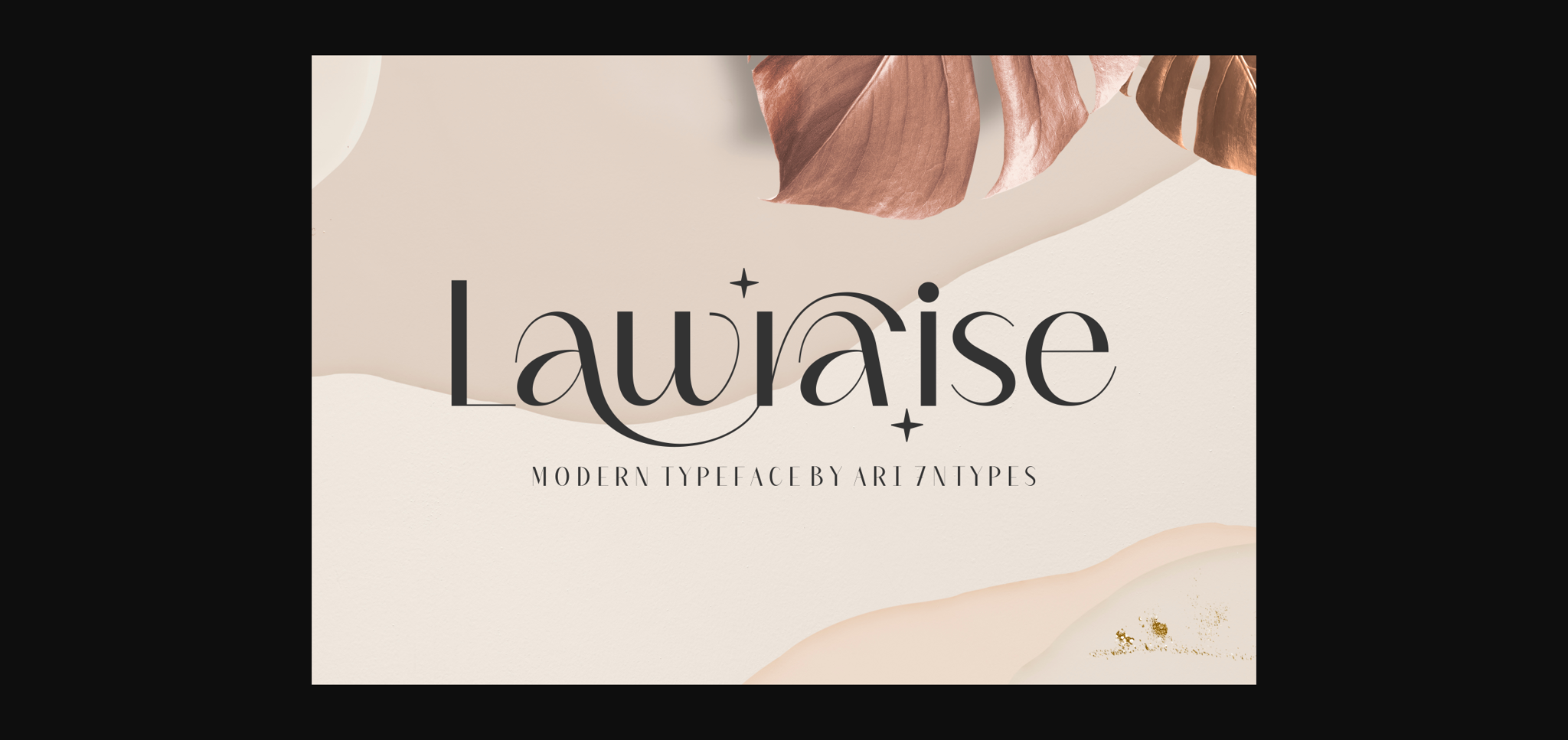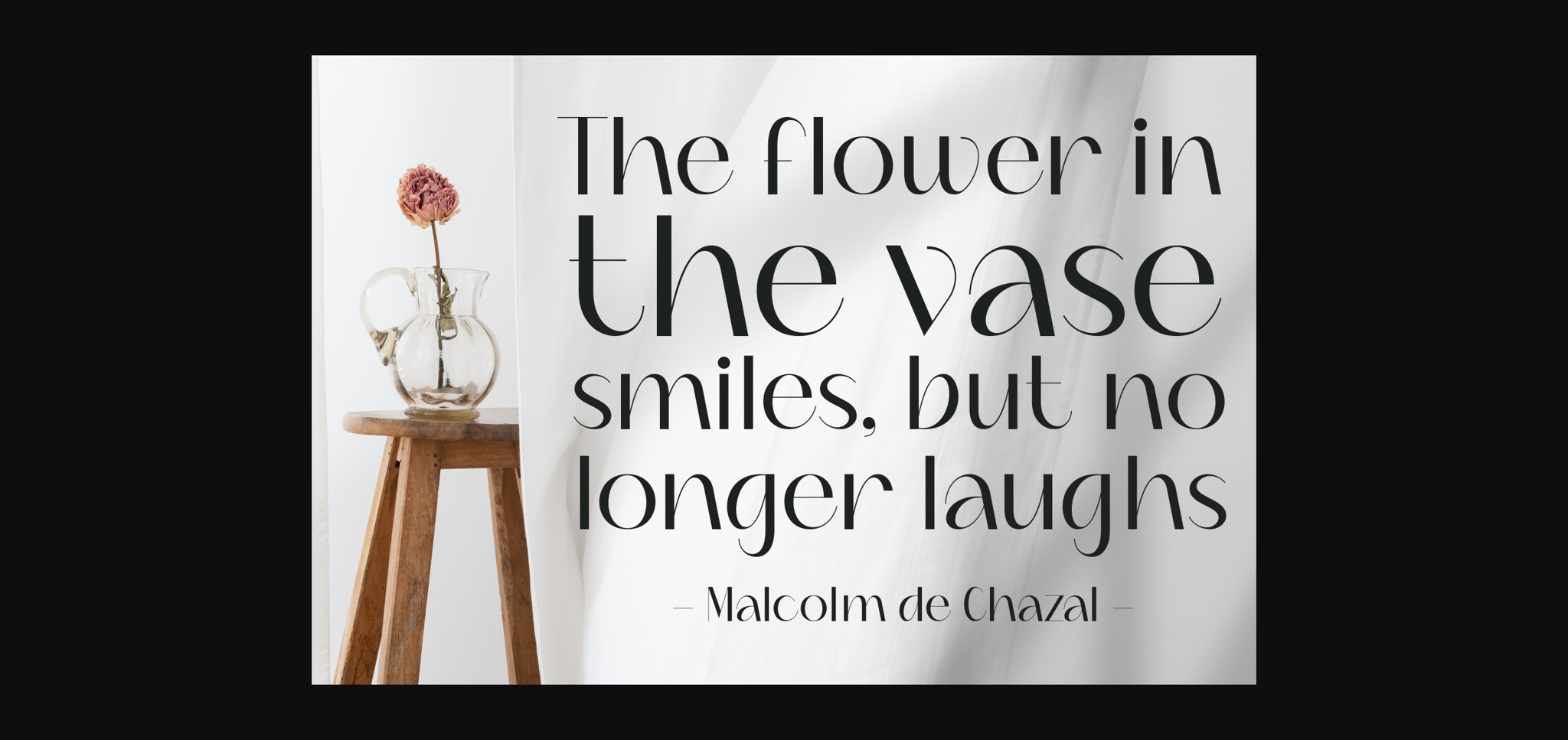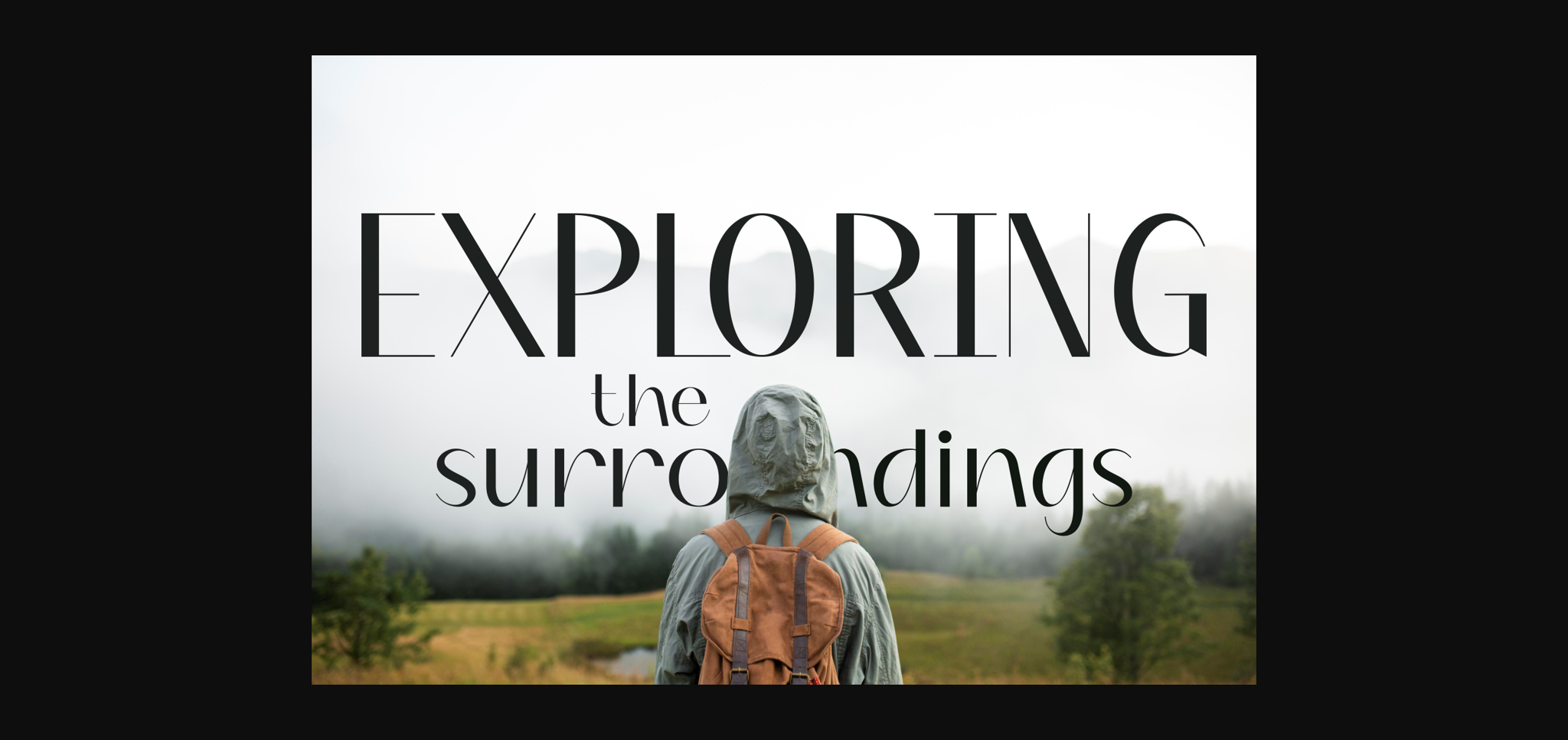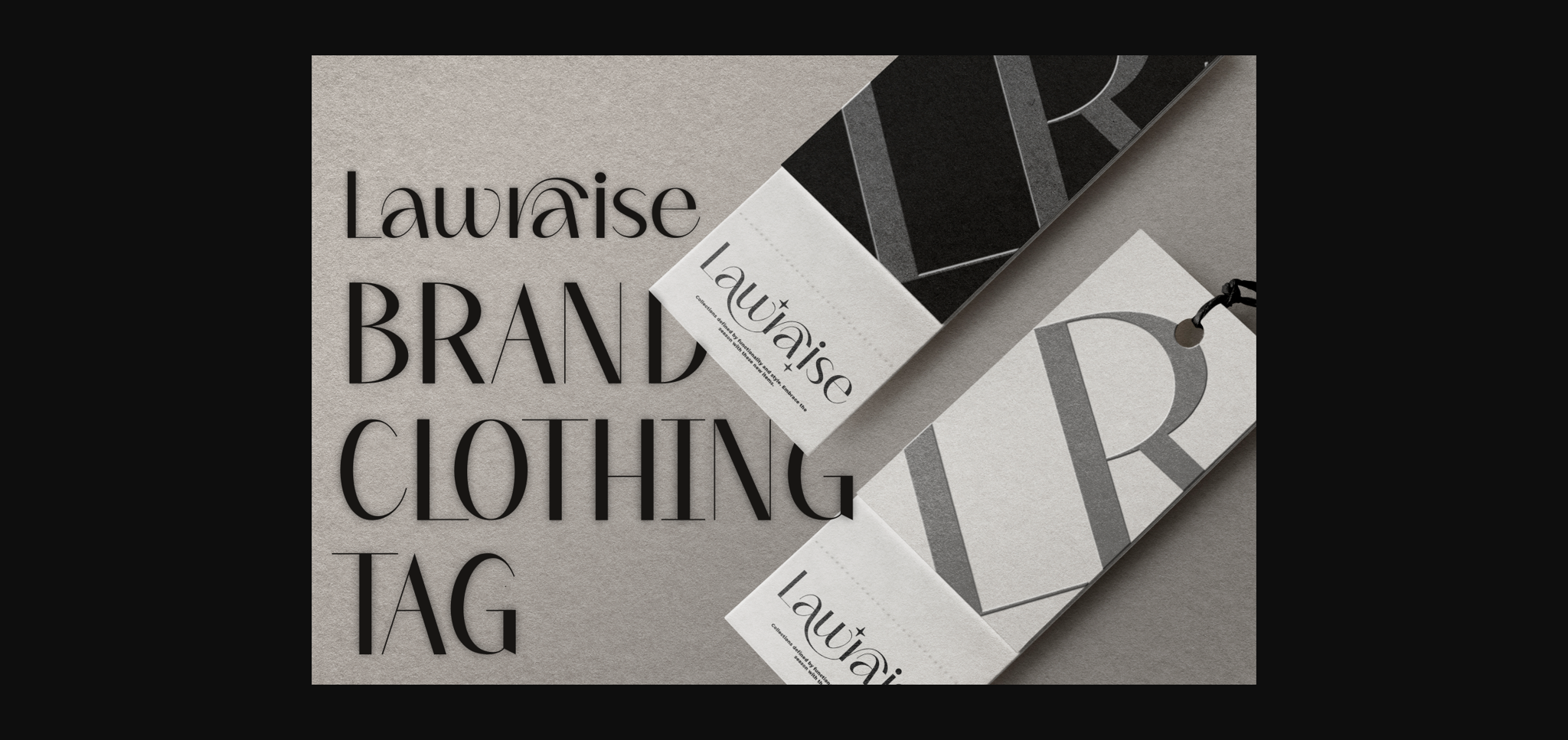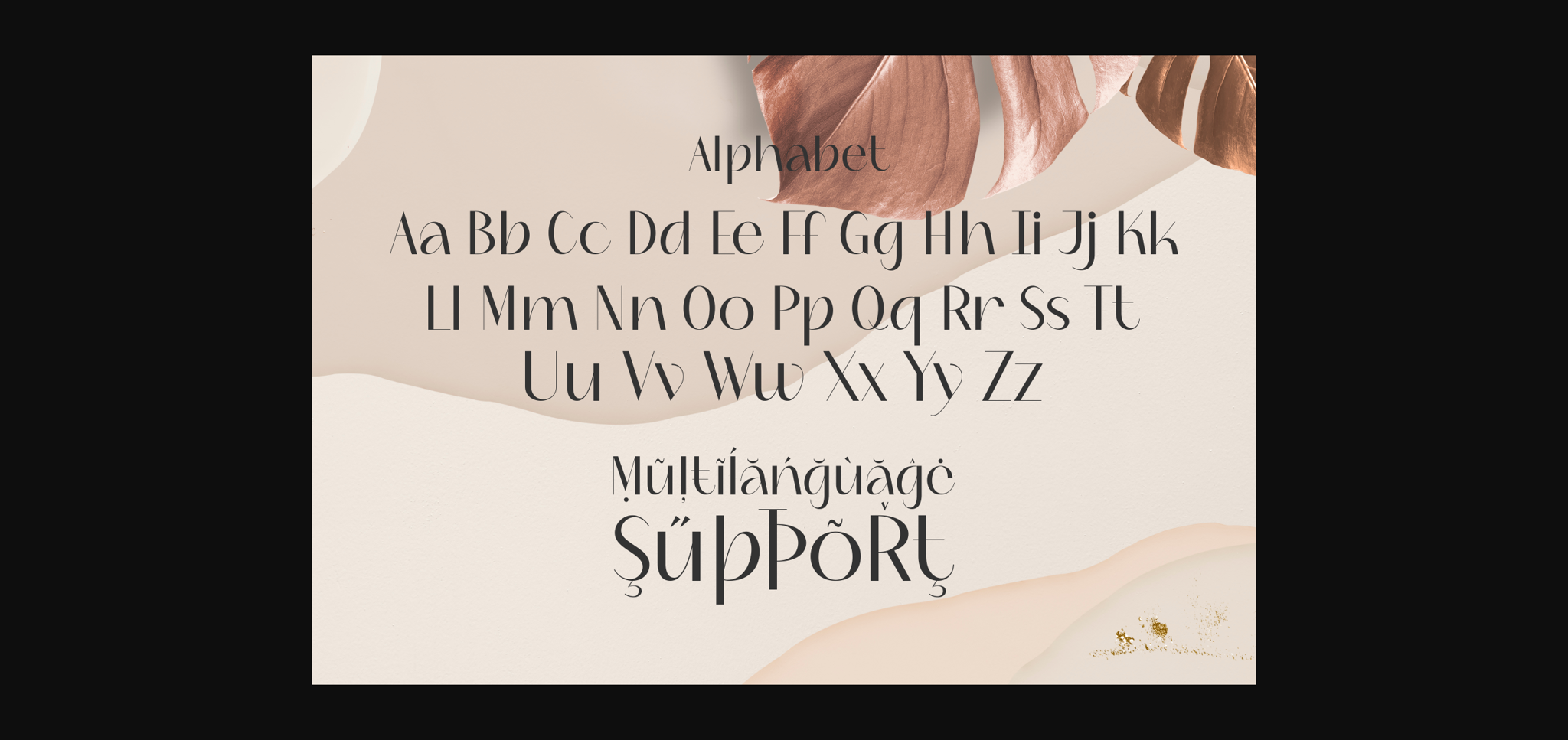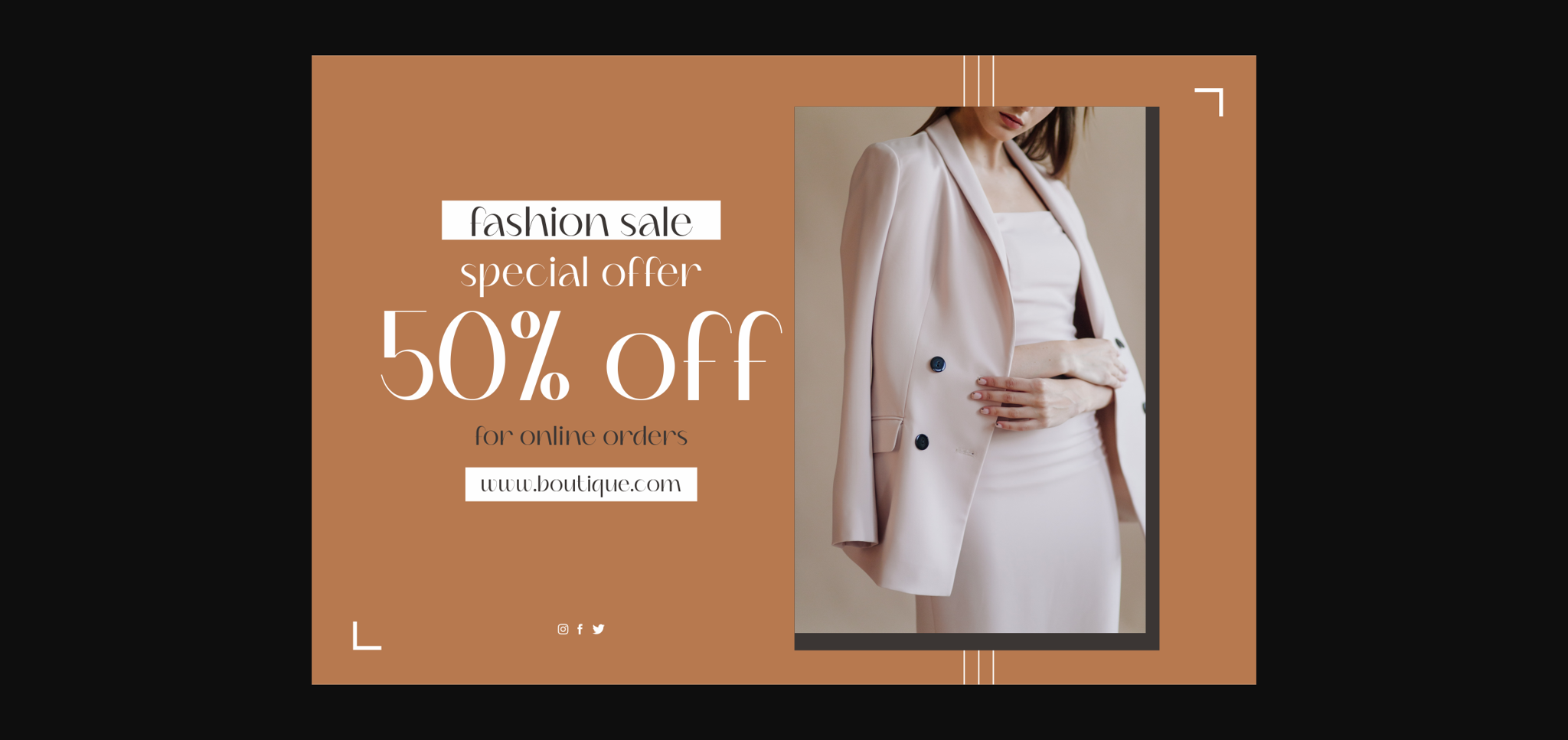
HomeSans Serif FontsLawraise Font Sans Serif Fonts Lawraise Font FacebookXPinterestWhatsApp 1 of 8 ... Lawraise Font Poster 2... Lawraise Font Poster 3... Lawraise Font Poster 4... Lawraise Font Poster 5... Lawraise Font Poster 6... Lawraise Font Poster 7... Lawraise Font Poster 8... About Lawraise Font Lawraise is an exquisite sans-serif font with an incredibly elegant feel. Balanced and impeccably shaped, these characters will take any creation to the highest levels! DOWNLOAD NOW People also explored Dreaming School Font Unispace Shutter and White Font Trixie Limber Font Such a Cute One Font Diliya Font Angelina Font Onbold Smoke Font Sweet Bunny Font 666 0 TagsLawraise Font Previous articlePosteria FontNext articleDistrict Font LEAVE A REPLY Cancel reply Comment: Please enter your comment! Name:* Please enter your name here Email:* You have entered an incorrect email address! Please enter your email address here Website: Save my name, email, and website in this browser for the next time I comment. Personal Use Free Mustica Personal Use Free Read more about this font Equalizer Script Personal Use Free Read more about this font Stronger Personal Use Free Read more about this font Anggiana Personal Use Free Read more about this font BLOG Free vs Paid Fonts: Why Investing in Premium Fonts Is Worth It Free vs Paid Fonts: Why Premium Fonts Are Worth It in 2025 The debate of free vs paid fonts continues in the design world. While... Using Fonts in Digital Marketing: Tips to Strengthen Your Brand Identity Exploring Font Trends How to Cut Any Font on Cricut: Convert a Font to SVG (Free)